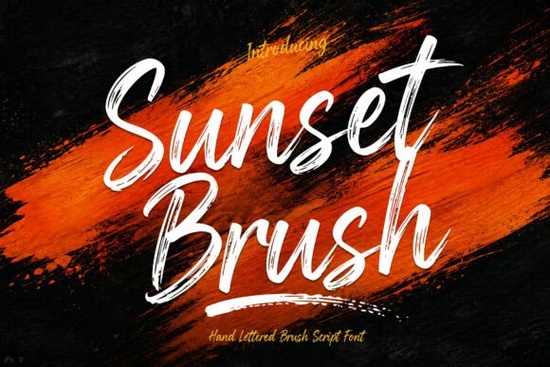
If you’ve been searching for a brush script font that feels alive on the page, Sunset Brush Font might be exactly what your next project needs. It’s not just another digital typeface it’s built from real brushstrokes, giving each letter texture, movement, and personality. Whether you’re designing a logo, packaging, social media graphic, or wedding invitation, this font brings warmth and energy without trying too hard.
What makes it stand out is how naturally it flows. The curves feel human, not algorithmic. You can almost see the hand behind the brush the slight wobble in the downstroke, the taper at the end of a flourish. That’s why it works so well for brands that want to feel approachable, handmade, or emotionally resonant. Think coffee shops, indie boutiques, artisanal products, or heartfelt event designs.
What kinds of projects does Sunset Brush work best for?
This font adapts surprisingly well across mediums. Here’s where it really shines:
- Branding & logos – Its bold presence grabs attention without feeling corporate. Great for food, beauty, or lifestyle brands.
- Packaging & labels – The textured strokes add depth to product jars, bags, or bottles especially when printed on matte or recycled paper.
- Social media & digital ads – Use it as an overlay on photos or short videos. It reads clearly even at smaller sizes.
- Apparel & merch – Looks fantastic on t-shirts, tote bags, or mugs. Pair it with minimal sans-serifs for balance.
- Invitations & stationery – Adds a personal, celebratory vibe to weddings, birthdays, or baby showers.
If you like the organic feel of Amelia Rose but want something with more punch, Sunset Brush delivers that contrast. It’s less delicate, more dynamic perfect when you need your message to feel energetic, not just elegant.
How does it compare to other handwritten fonts on Creative Fabrica?
It’s easy to get overwhelmed by script fonts, especially when they all promise “handmade charm.” But Sunset Brush stands apart because of its intentional imperfections. Unlike cleaner scripts like Belinda Script, which leans into graceful consistency, Sunset Brush celebrates variation every letter has its own rhythm.
For those who love fantasy-inspired whimsy, Fairies offers a totally different mood playful, airy, and decorative. Sunset Brush, by contrast, is grounded and expressive. It doesn’t sparkle; it pulses.
And if you’re building a collection, consider pairing it with Beloved Script for softer accents or layering it over a handwritten bundle to create visual hierarchy in posters or flyers.
Is it beginner-friendly for non-designers?
The character set includes standard letters, numbers, punctuation, and often alternates or ligatures (depending on the version you download). If your software supports OpenType features, you’ll get even more stylistic options swashes, ending strokes, or contextual alternates that make words look more natural.
Pro tip: Avoid using all caps. This font thrives in mixed case or sentence case. Let the ascenders and descenders do their dance that’s where the personality lives.
Many users pair it with neutral sans-serif fonts (like Montserrat or Lato) to keep things readable while letting Sunset Brush carry the emotional tone. Others use it solo for headlines or short phrases where impact matters more than paragraph length.
And don’t forget if you’re designing for print, test a small proof first. Some textured brush fonts can get muddy at tiny sizes or on low-res printers. Sunset Brush holds up well, but it’s always smart to preview before committing to 500 invitations or labels.